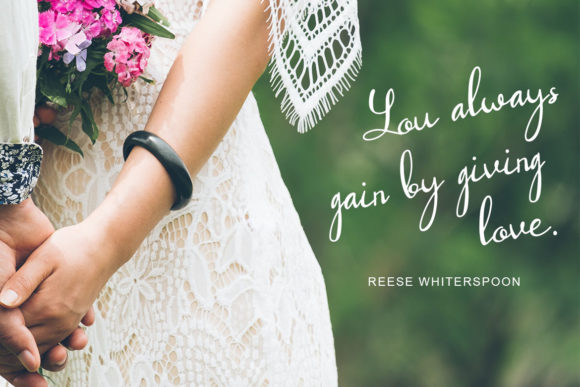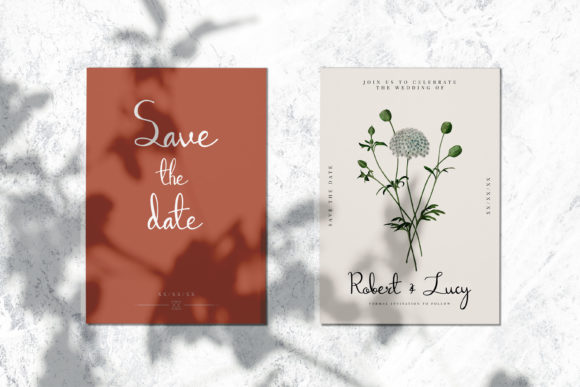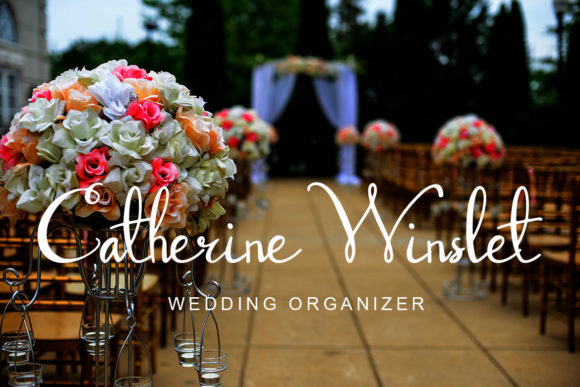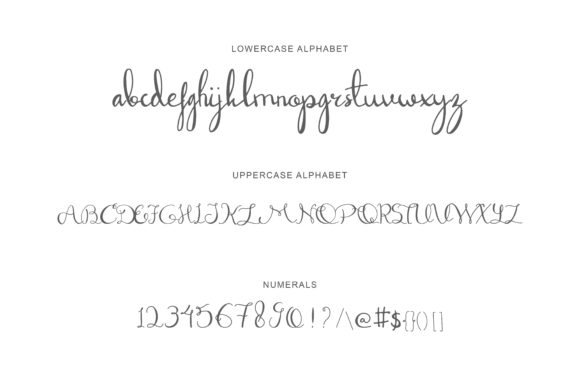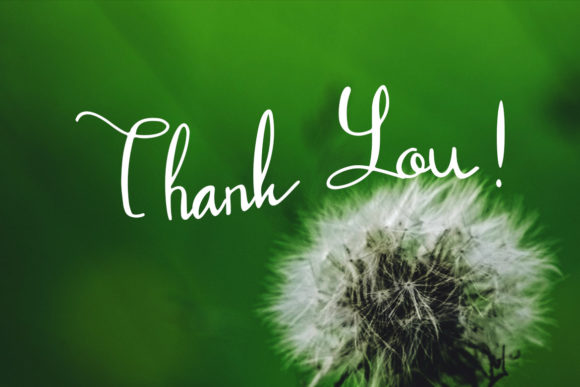
Dandelion Script Font: Elevate Your Design with a Touch of Sophistication
Are you looking for a font that can add a dash of elegance and refinement to your design projects? Look no further than the Dandelion Script Font. This beautiful handwritten font boasts a light feel that is sure to elevate your designs and leave a lasting impression. In this article, we’ll take a closer look at the Dandelion Script Font, its features, and how you can use it to take your designs to the next level.
What is Dandelion Script Font?
Dandelion Script Font is a stunning handwritten font that is perfect for designs that require a touch of sophistication. Its light feel makes it an excellent choice for a wide range of projects, from wedding invitations and branding materials to packaging and digital designs. The font’s elegant strokes and beautiful letterforms make it a versatile choice that can be used in various contexts.
Key Features of Dandelion Script Font
- Beautiful Handwritten Style: Dandelion Script Font features a gorgeous handwritten style that is both elegant and refined.
- Light Feel: The font’s light feel makes it perfect for designs that require a subtle yet sophisticated touch.
- Versatile: Dandelion Script Font can be used in a wide range of projects, from print materials to digital designs.
- Elegant Strokes: The font’s elegant strokes and beautiful letterforms make it a joy to use.
How to Use Dandelion Script Font in Your Designs
Using Dandelion Script Font in your designs is easy. Here are a few tips to get you started:
- Pair it with a Sans-Serif Font: Pair Dandelion Script Font with a sans-serif font for a beautiful contrast that adds visual interest to your designs.
- Use it for Headings and Titles: Dandelion Script Font is perfect for headings and titles, where its elegant strokes and beautiful letterforms can shine.
- Add a Personal Touch: Use Dandelion Script Font to add a personal touch to your designs, such as in wedding invitations, greeting cards, and other personal stationery.
Benefits of Using Dandelion Script Font
There are many benefits to using Dandelion Script Font in your designs. Here are a few:
- Unique and Eye-Catching: Dandelion Script Font is a unique and eye-catching font that is sure to grab attention.
- Elegant and Refined: The font’s elegant strokes and beautiful letterforms make it perfect for designs that require a touch of sophistication.
- Versatile: Dandelion Script Font can be used in a wide range of projects, making it a great addition to your font library.
If you’re a designer or crafter looking to elevate your designs with Dandelion Script Font, here are a few tips to keep in mind:
- Use it in Combination with Other Fonts: Dandelion Script Font pairs well with other fonts, so don’t be afraid to get creative and try out different combinations.
- Pay Attention to Kerning and Spacing: Pay attention to kerning and spacing to ensure that your text looks professional and polished.
| Font Name | Dandelion Script Font |
| Author | Helotype |
In conclusion, Dandelion Script Font is a beautiful handwritten font that is perfect for designs that require a touch of sophistication. Its light feel, elegant strokes, and beautiful letterforms make it a versatile choice that can be used in a wide range of projects. Whether you’re a designer, crafter, or DIY enthusiast, Dandelion Script Font is a great addition to your font library. So why not give it a try and see how it can elevate your designs?